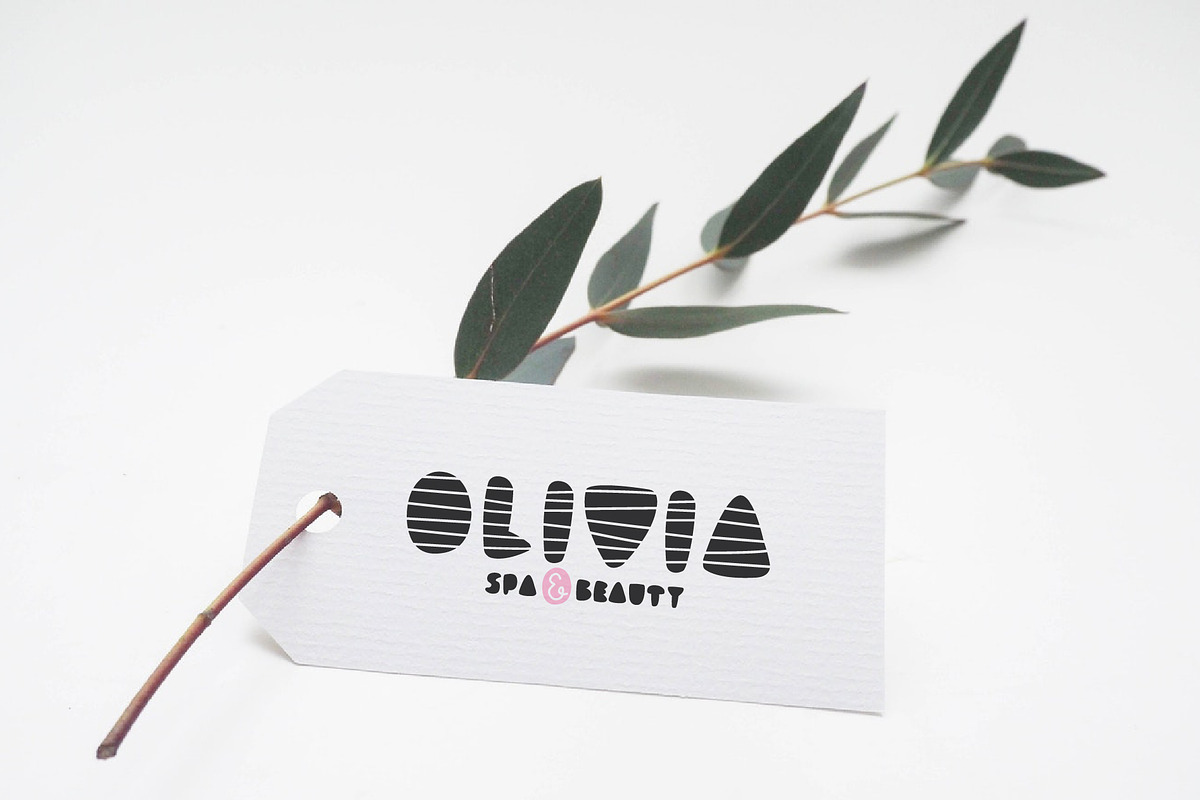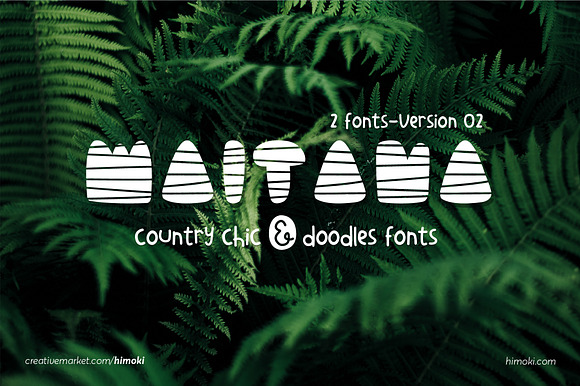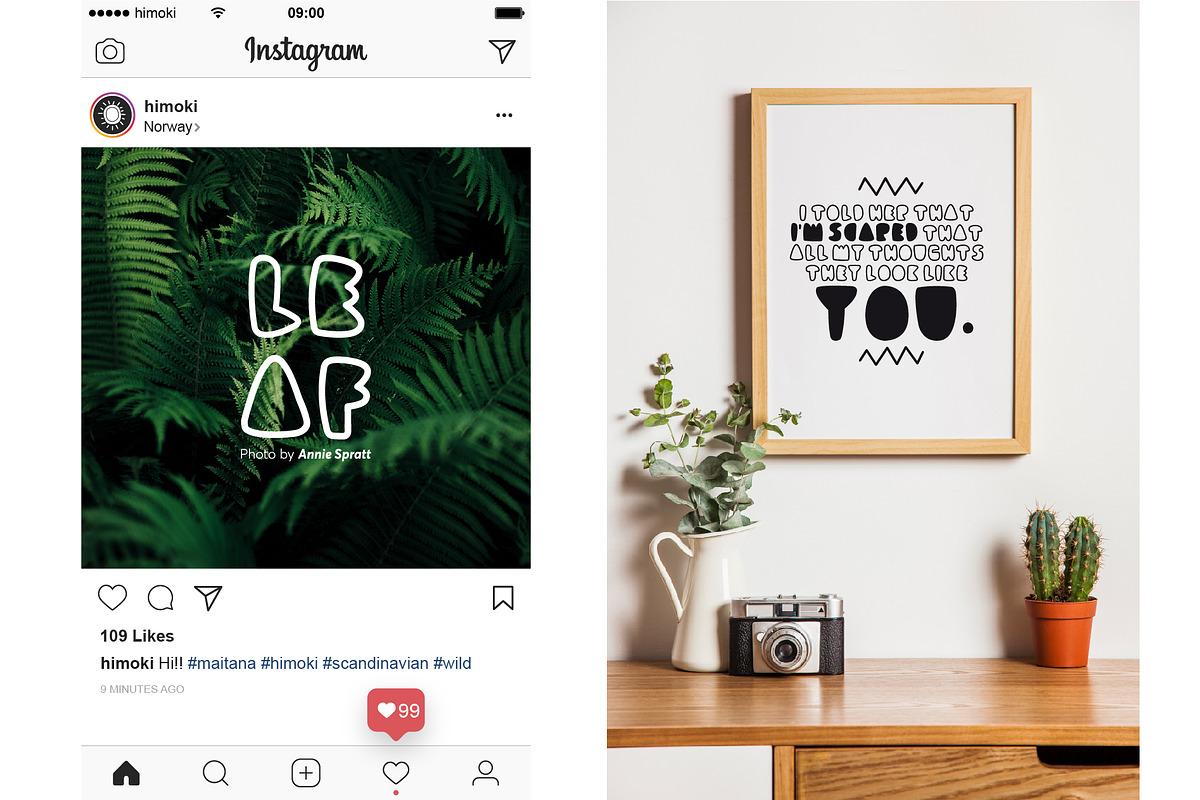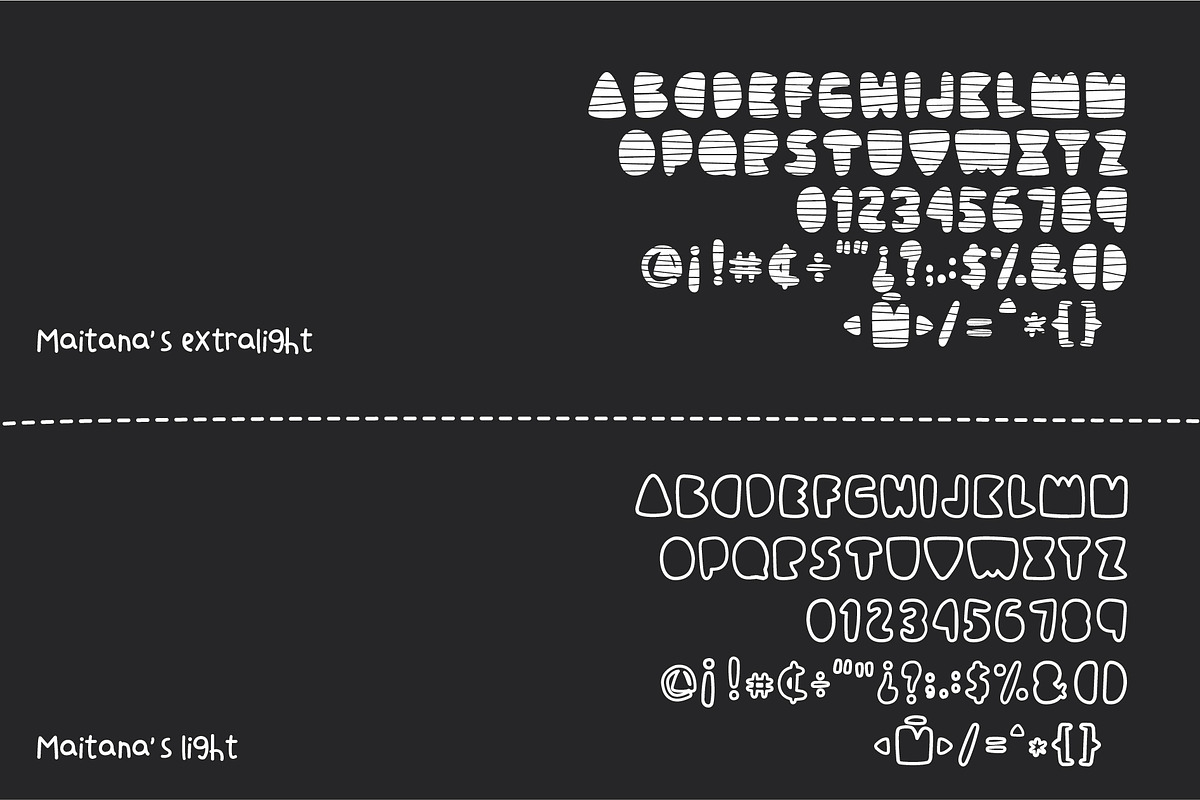
Maitanacountryscandinavian2fonts
Maitana´s fonts by Himoki
Scandinavian style and country style, great for design and compositions. //otf, ttff file //3 fonts